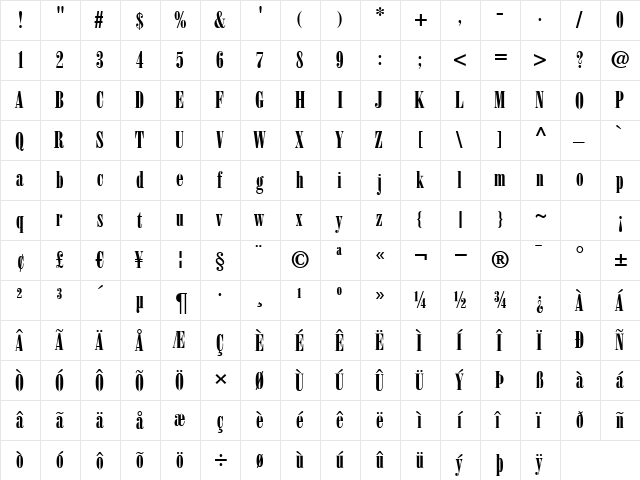
BodoniPosterCompressed Bold
Design Context for BodoniPosterCompressed Typeface
BodoniPosterCompressed is a composed and adaptable typeface that performs quietly and consistently across a wide range of design contexts. Its bold stroke weight gives it real presence on the page.